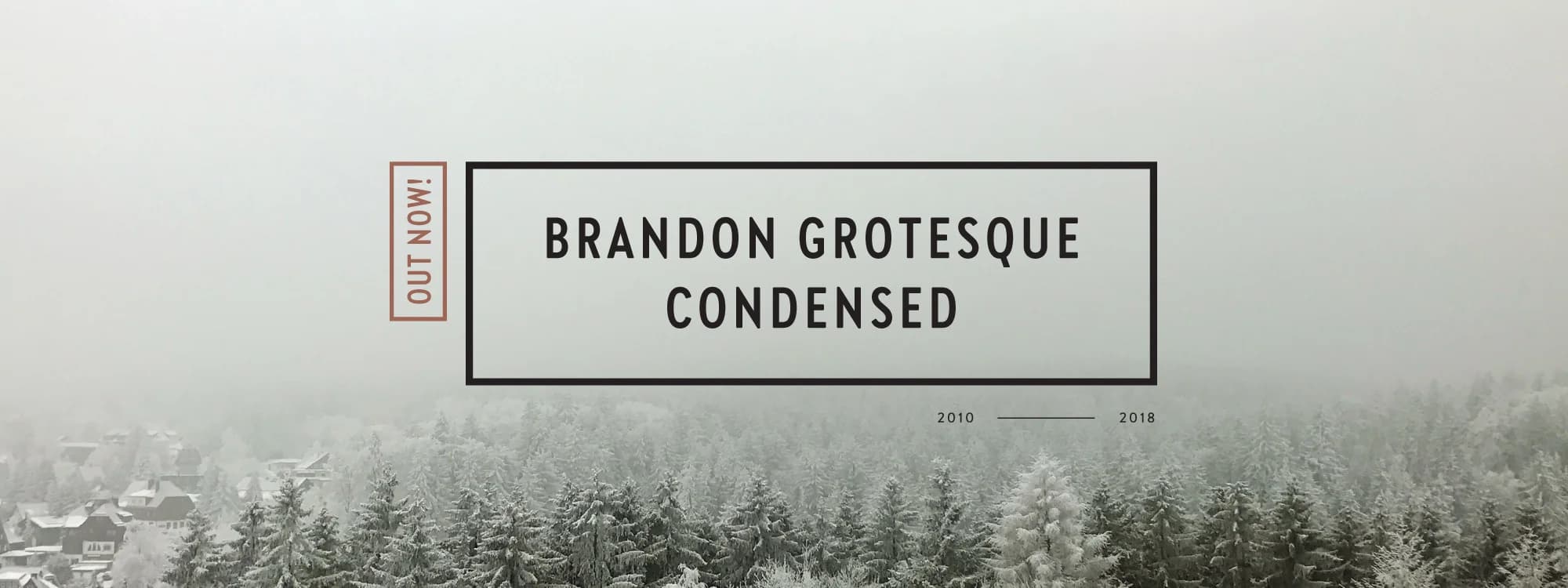
Brandon Grotesque Condensed
HvD Fonts · Hannes von Döhren · 2012
A condensed companion to Brandon Grotesque, offering the same geometric warmth in a narrowed cut suited to headlines and tight settings.
Brandon Grotesque Condensed extends Hannes von Döhren's popular geometric sans into a condensed width, preserving the slightly warm, humanist-influenced geometry of the original family. The condensed proportions make it well suited to display settings, packaging and editorial contexts where column width is limited. It shares the same weight range and italic pairing as the core Brandon Grotesque family.
Brandon Grotesque is a geometric sans with humanist touches, and this condensed variant carries the same geometric structure in a narrowed width suitable for headlines and constrained settings.